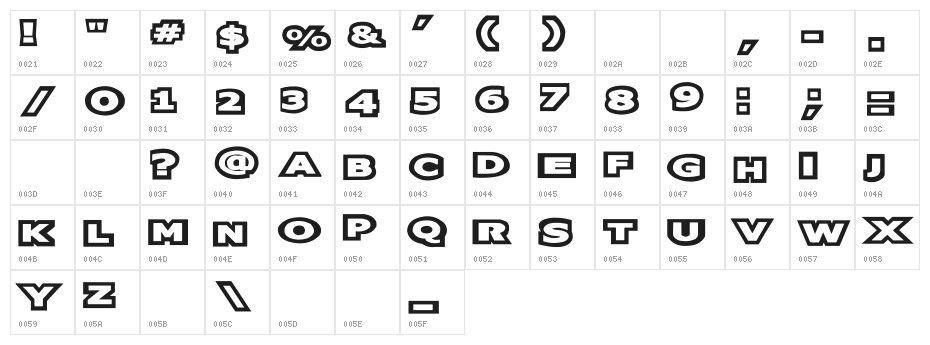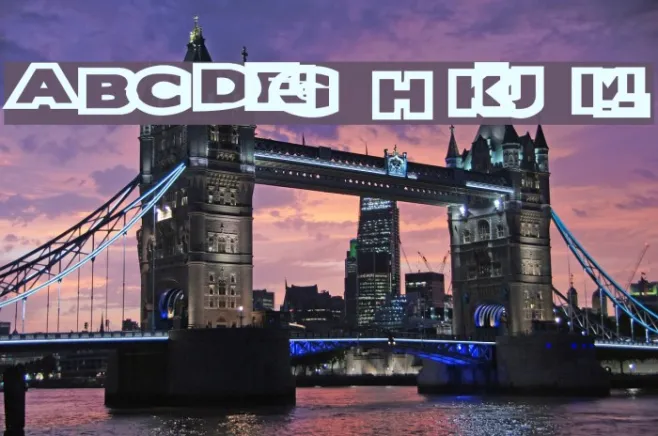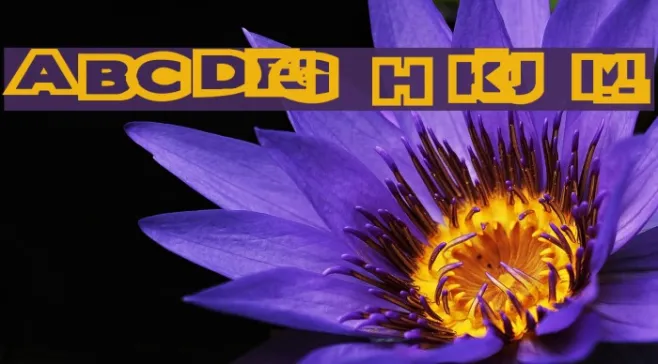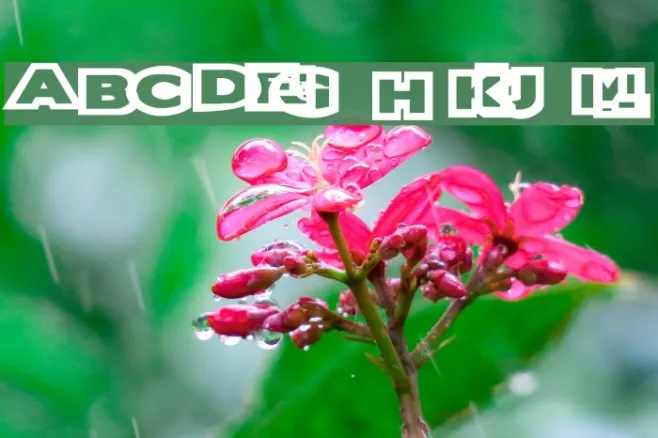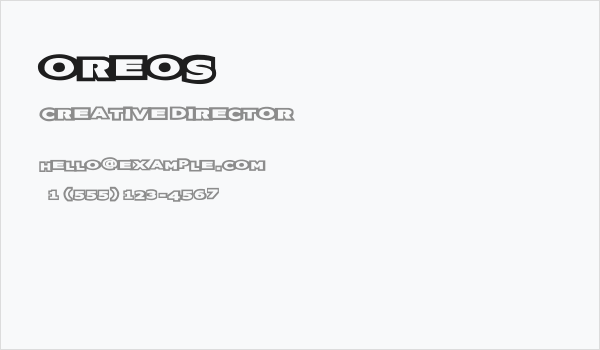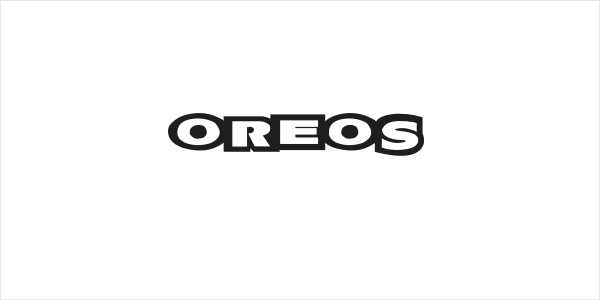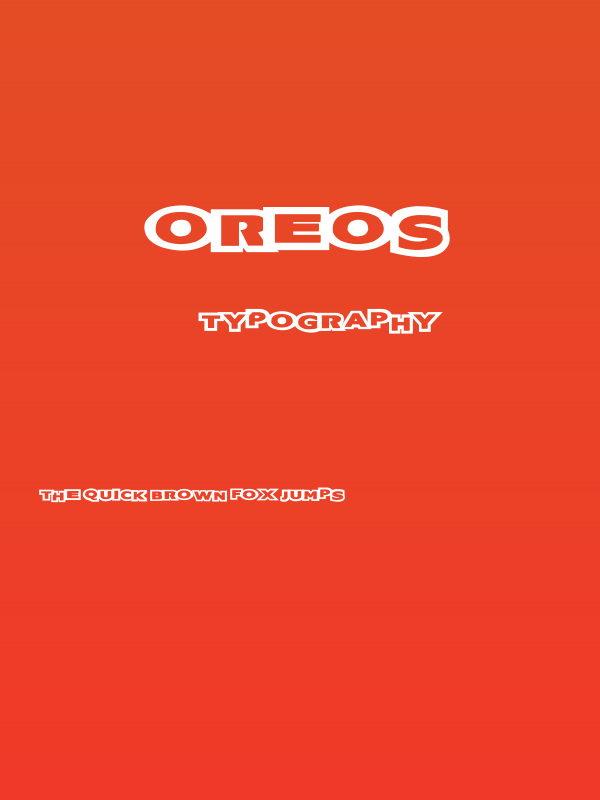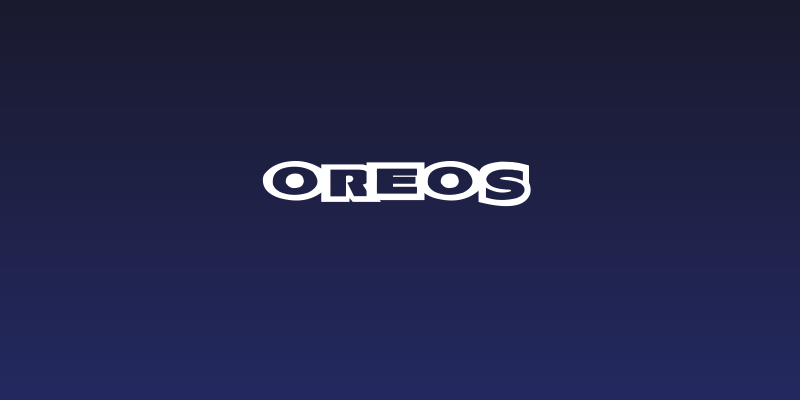
Oreos Font
Oreos Description
This font features bold, uppercase and lowercase letters with a strong, impactful presence. The characters are outlined with a thick black border, creating a striking contrast against the white interior. The style is reminiscent of retro or vintage designs, with a playful and eye-catching appearance. The numbers and special characters maintain the same bold and outlined style, ensuring consistency across all elements. The font's unique design makes it suitable for projects that require a standout, decorative typeface.
| Proposed Projects | Ideal for posters, logos, headlines, and any design needing a bold, vintage touch. |